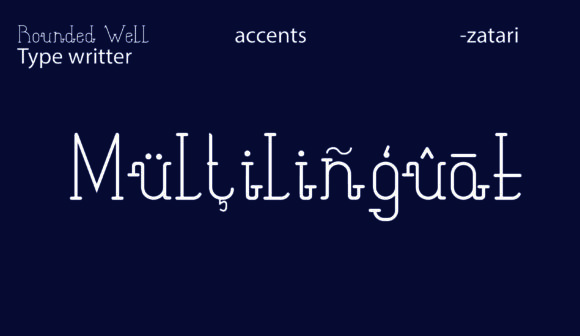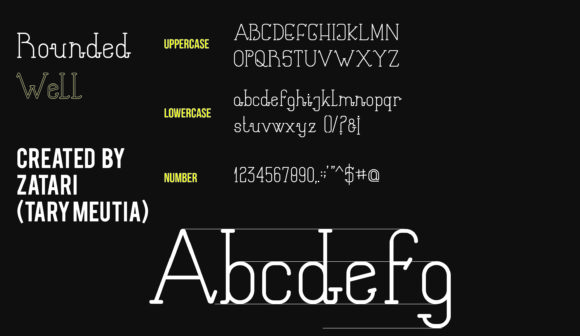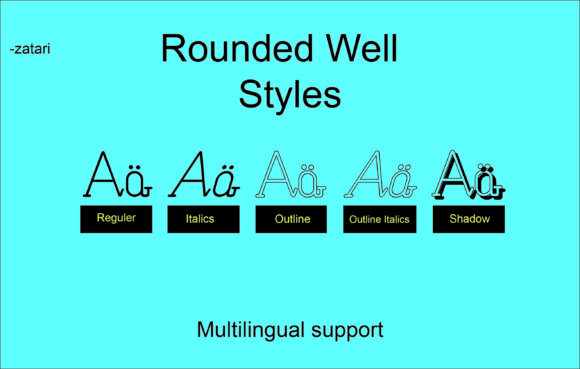
Rounded Well
Rounded Well: A Fresh and Charming Slab Serif Font
Rounded Well is a distinctive slab serif font that offers designers a unique and personable typographic tool. This typeface combines the structure of traditional slab serifs with a fresh, modern twist, making it suitable for a wide range of design projects that require a touch of charm and individuality.
Key Features of Rounded Well
• Fresh Design: Offers a contemporary take on the classic slab serif structure
• Unique Character: Stands out with its distinctive and charming appearance
• Personal Touch: Adds a friendly and approachable feel to designs
• Versatile Application: Suitable for various design projects requiring a unique twist
Ideal Uses for Rounded Well
Rounded Well’s unique characteristics make it particularly well-suited for:
• Branding projects seeking a friendly and approachable aesthetic
• Editorial layouts aiming for a fresh and modern look
• Packaging design for products with a personal touch
• Social media graphics and digital content
• Invitations and personal stationery
When incorporating Rounded Well into your designs, consider the following tips:
• Use for headlines or short blocks of text to showcase its unique charm
• Pair with simpler sans-serif fonts for body text to create contrast
• Experiment with different sizes to highlight the font’s distinctive features
• Consider using it in projects where you want to convey a friendly and approachable tone
Rounded Well is an excellent choice for designers looking to add a fresh and charming touch to their work. Its unique blend of slab serif structure and modern design makes it stand out in the world of typography. Whether you’re working on logo designs, editorial layouts, or creating eye-catching website headers, Rounded Well offers the perfect combination of personality and readability.
Explore how Rounded Well can bring a fresh and personal edge to your design projects. From friendly branding to approachable editorial designs, this font provides the tools to create impactful and memorable typography that stands out with its unique charm.